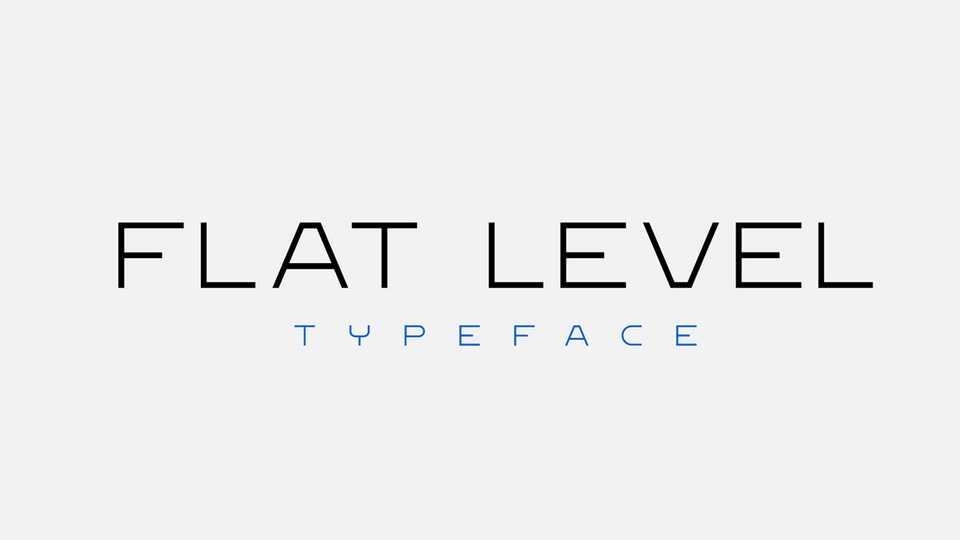
Download Flat Level font, a unique sharp display typeface. Flat Level font comes with two weights, contains only all caps letters, numbers, and symbols.